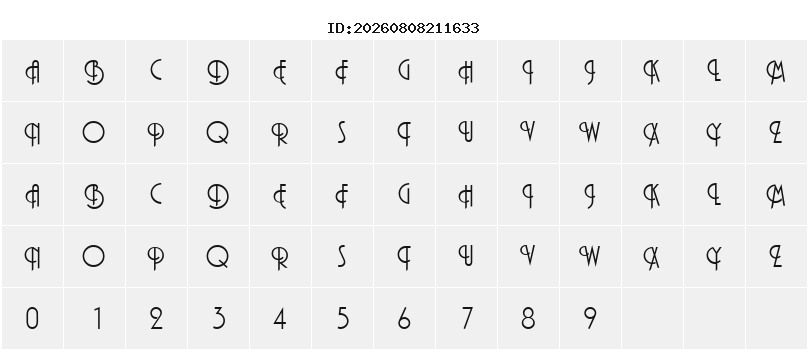
• Font Name: Pizzicato-Initials
• Designer: SoftMaker Software GmbH
Pizzicato-Initials.ttf is a modern, elegant sans-serif font designed for ultimate readability and visual harmony. Perfect for branding, headlines, web design, and print materials.